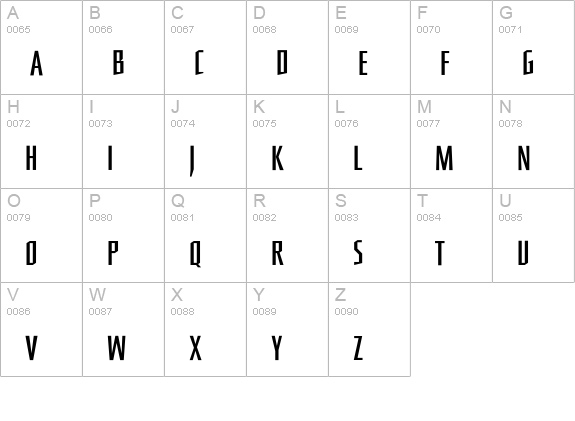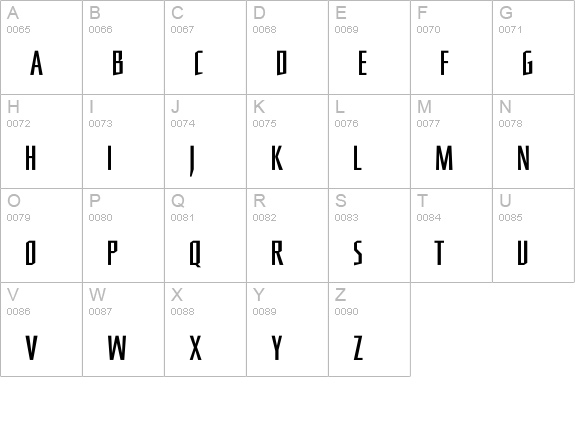
PrimaryStone-AllInAll Font Details
PrimaryStone-AllInAll font is a modern and versatile typeface that exudes elegance and sophistication. With its clean lines and unique design, this font is perfect for a wide range of design projects, including branding, packaging, and advertising. The sleek and professional look of PrimaryStone-AllInAll font will make your designs stand out and leave a lasting impression on your audience. What sets PrimaryStone-AllInAll font apart is that it is available for free download at FontsMarket.com. This means that you can easily access this high-quality font without any cost, making it a valuable asset for designers and creatives looking to elevate their work. Whether you're working on a personal project or a client's campaign, PrimaryStone-AllInAll font offers a stylish and contemporary aesthetic that will enhance any design. In addition to its visual appeal, PrimaryStone-AllInAll font is also user-friendly and easy to work with, making it suitable for designers of all skill levels. Its versatility allows for seamless integration into various design applications, giving you the flexibility to use it in different contexts. So why wait? Download PrimaryStone-AllInAll font today and take your designs to the next level with this exceptional typeface.